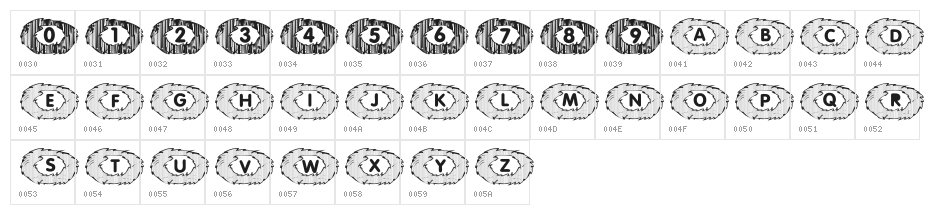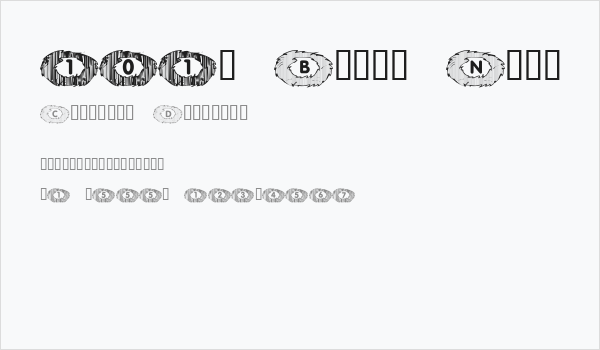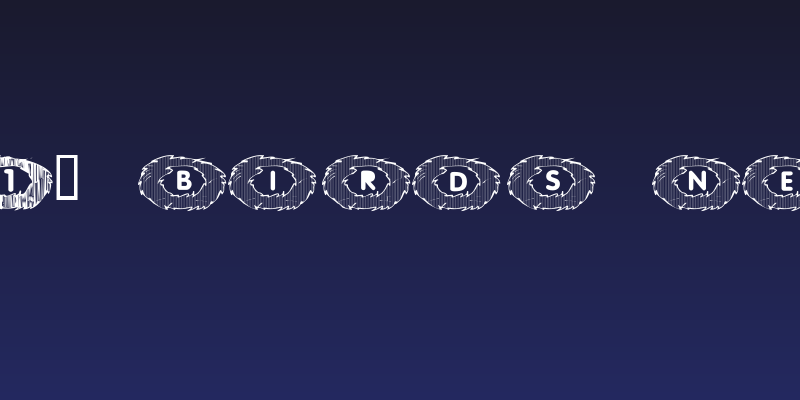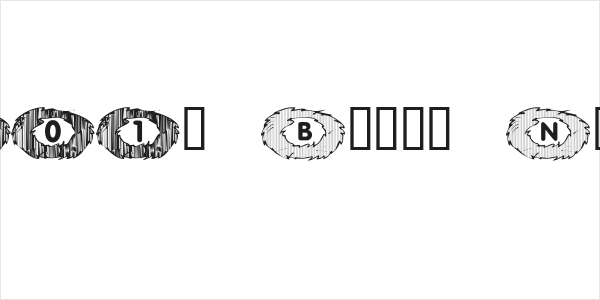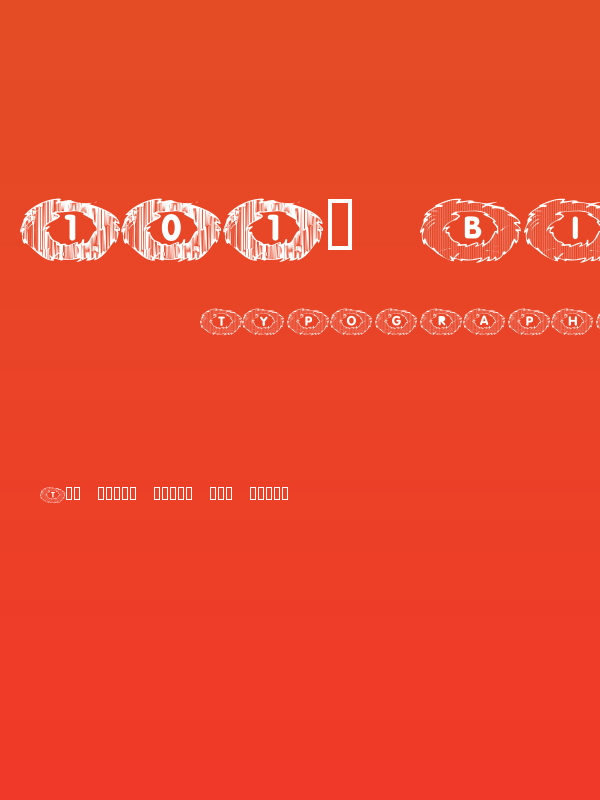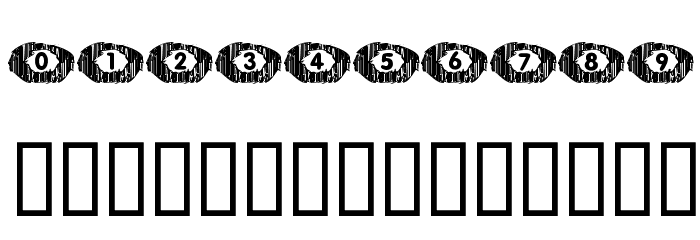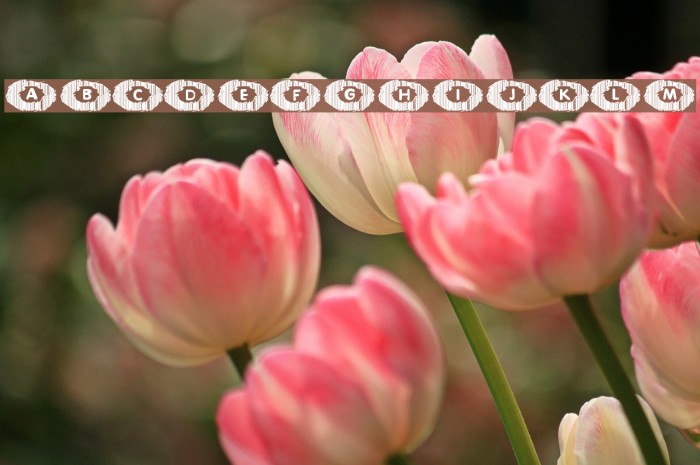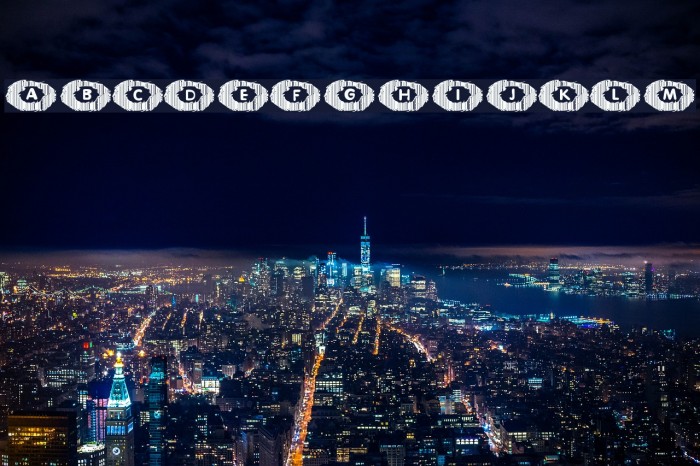
101! Birds Nest Font
101! Birds Nest Description
This decorative font features uppercase letters and numbers encased in an oval shape resembling a bird's nest, with intricate, textured patterns that mimic twigs and branches. The design is highly stylized, creating a unique and artistic appearance that stands out. The font lacks lowercase letters and special characters, focusing instead on its distinctive uppercase and numeric design. The characters are bold and have a playful, whimsical quality, making them ideal for creative projects that require a touch of nature-inspired artistry.
| Use Case | Logos, Headlines, Posters |
| Proposed Projects | Ideal for nature-themed designs, children's book covers, eco-friendly product packaging, and creative event invitations. |